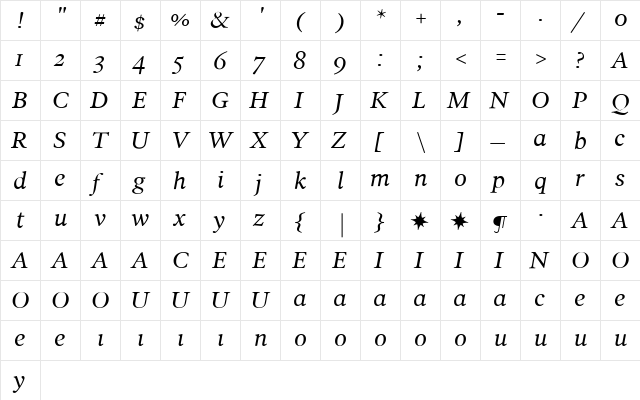
PoynterText Regular
Design Context for PoynterText Typeface
PoynterText is a composed and adaptable typeface that performs quietly and consistently across a wide range of design contexts.